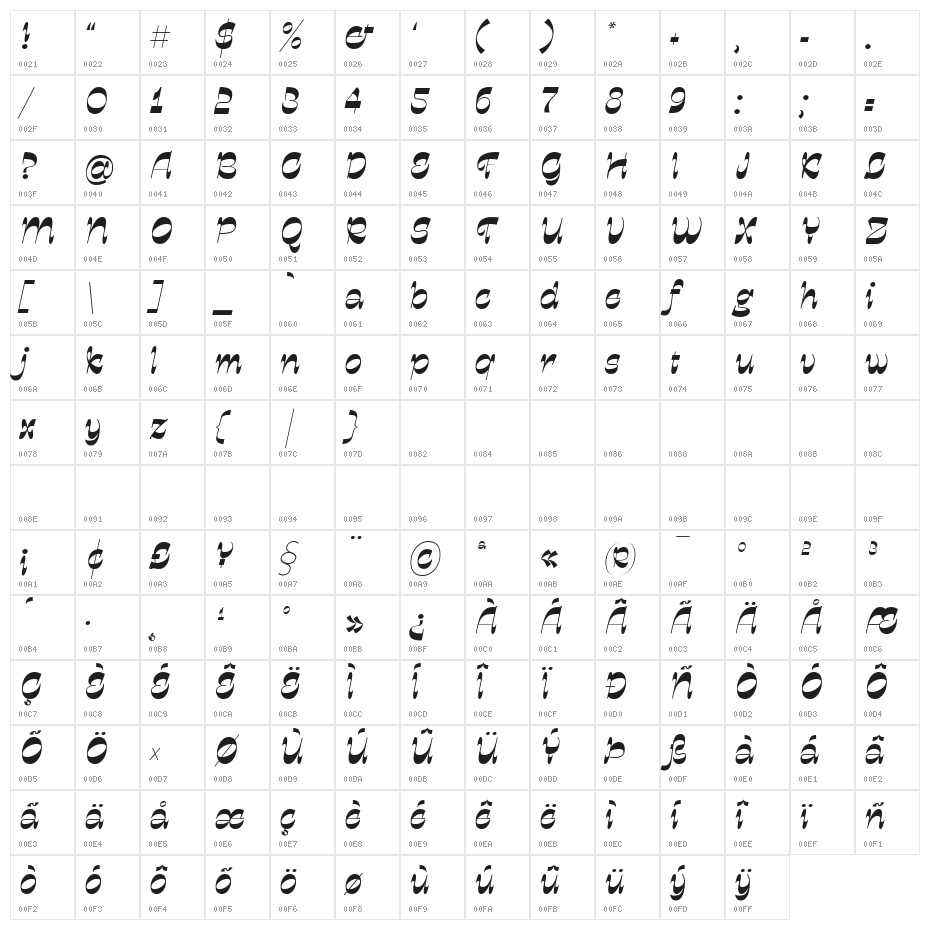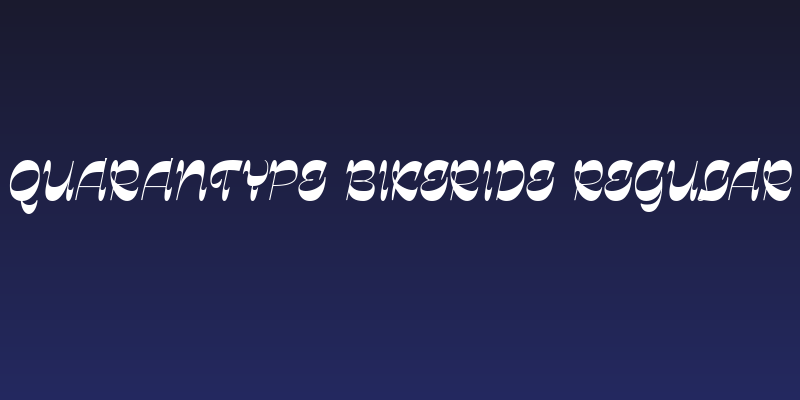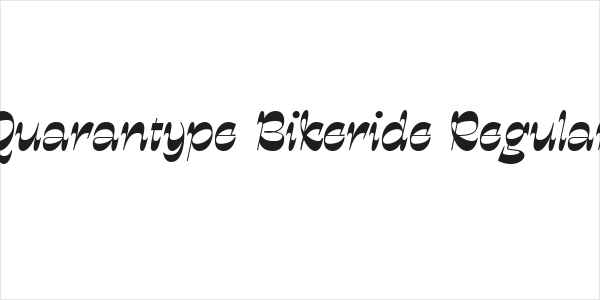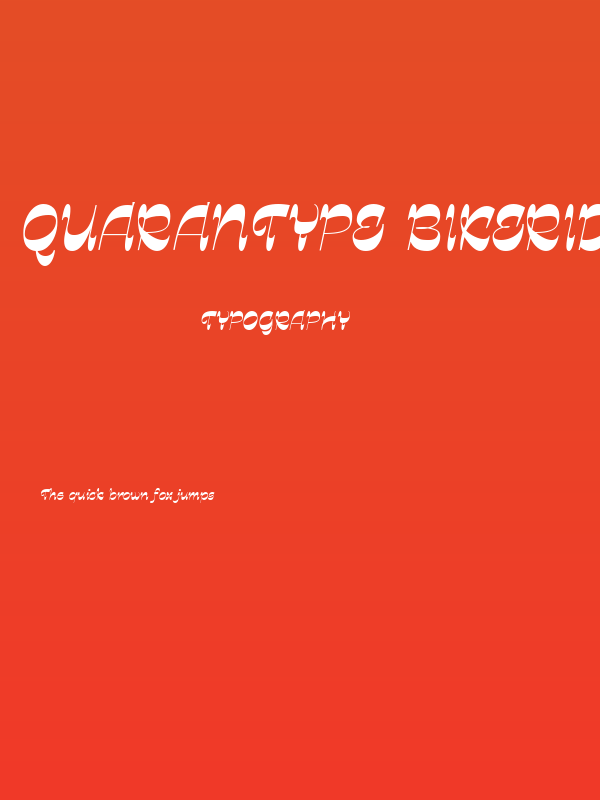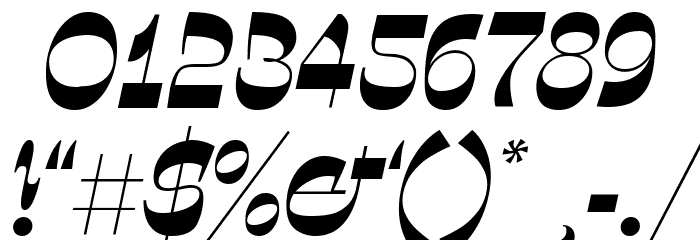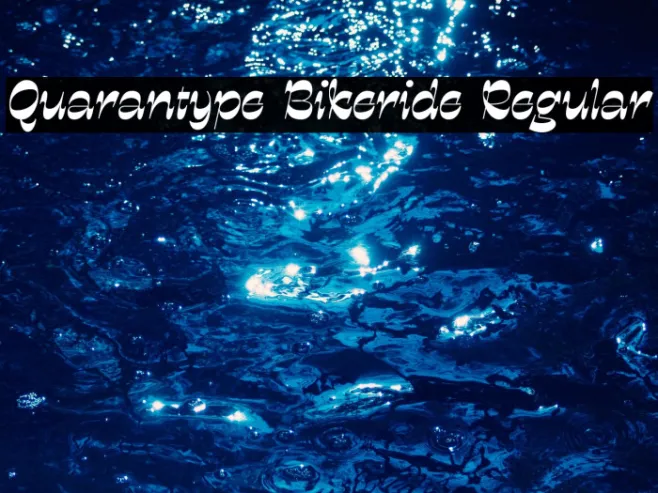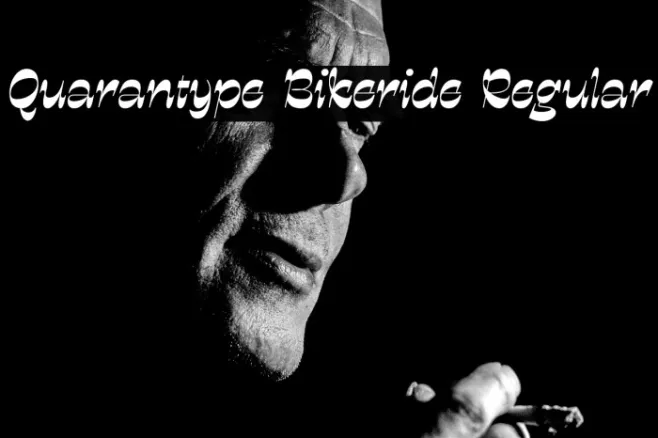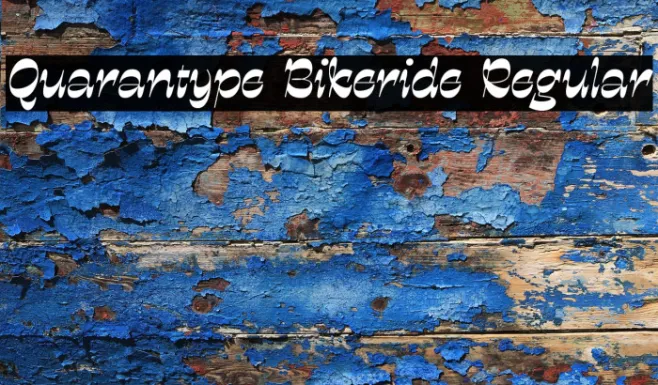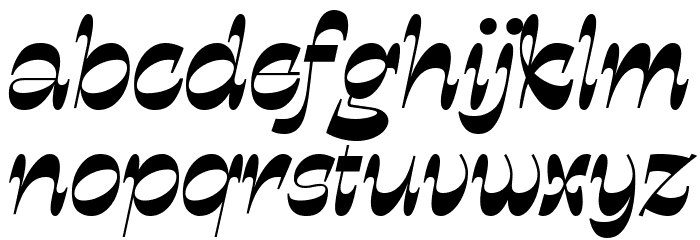
Quarantype Bikeride Regular Font
Quarantype Bikeride Regular Description
This font features a dynamic and energetic style, characterized by its bold and flowing script. The letters have a unique slant, giving them a sense of motion and speed. The uppercase and lowercase letters are designed with a consistent rhythm, while the numbers and special characters maintain the same lively aesthetic. The strokes are thick and expressive, with a high contrast between thick and thin lines, adding to the overall dramatic effect. This font is ideal for projects that require a sense of movement and flair, making it perfect for creative and artistic applications.